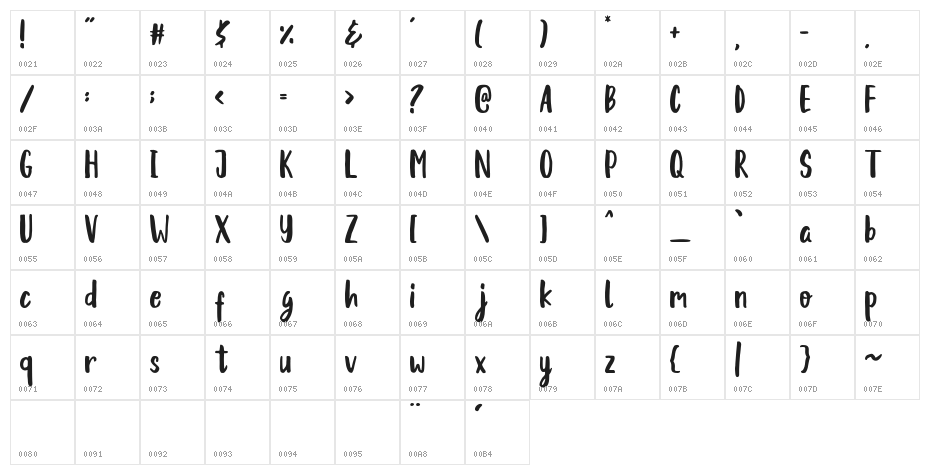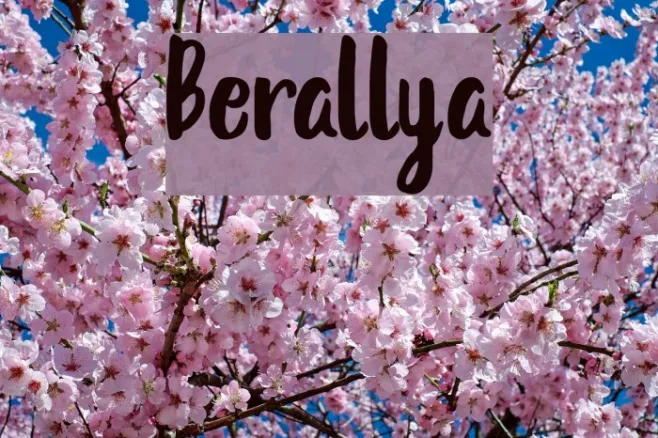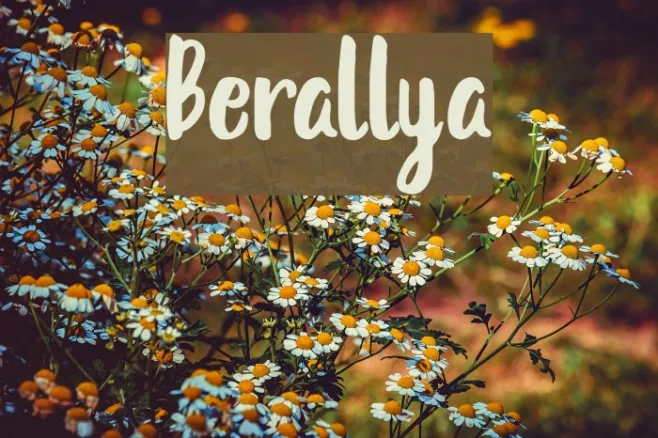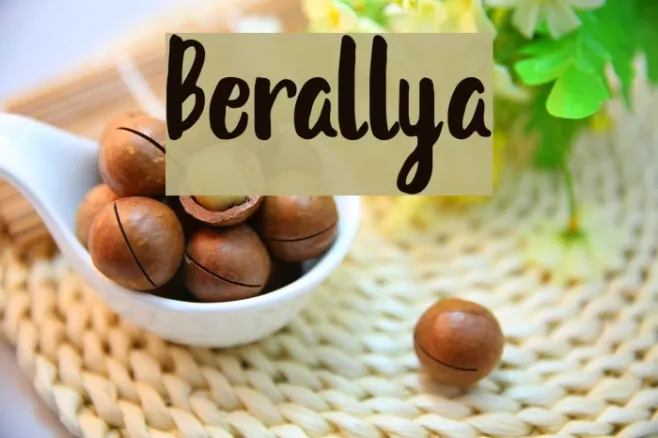
Berallya Font
Berallya Description
This font features a bold, handwritten style with a playful and energetic vibe. The characters are slightly irregular, giving it a casual and informal appearance. The uppercase letters are tall and narrow, while the lowercase letters have a more rounded and flowing form. The strokes are thick and consistent, providing a strong visual impact. The font includes a full set of uppercase and lowercase letters, numbers, and a variety of special characters, making it versatile for different design needs.
| Proposed Projects | Ideal for greeting cards, posters, social media graphics, and branding projects that require a personal touch. |